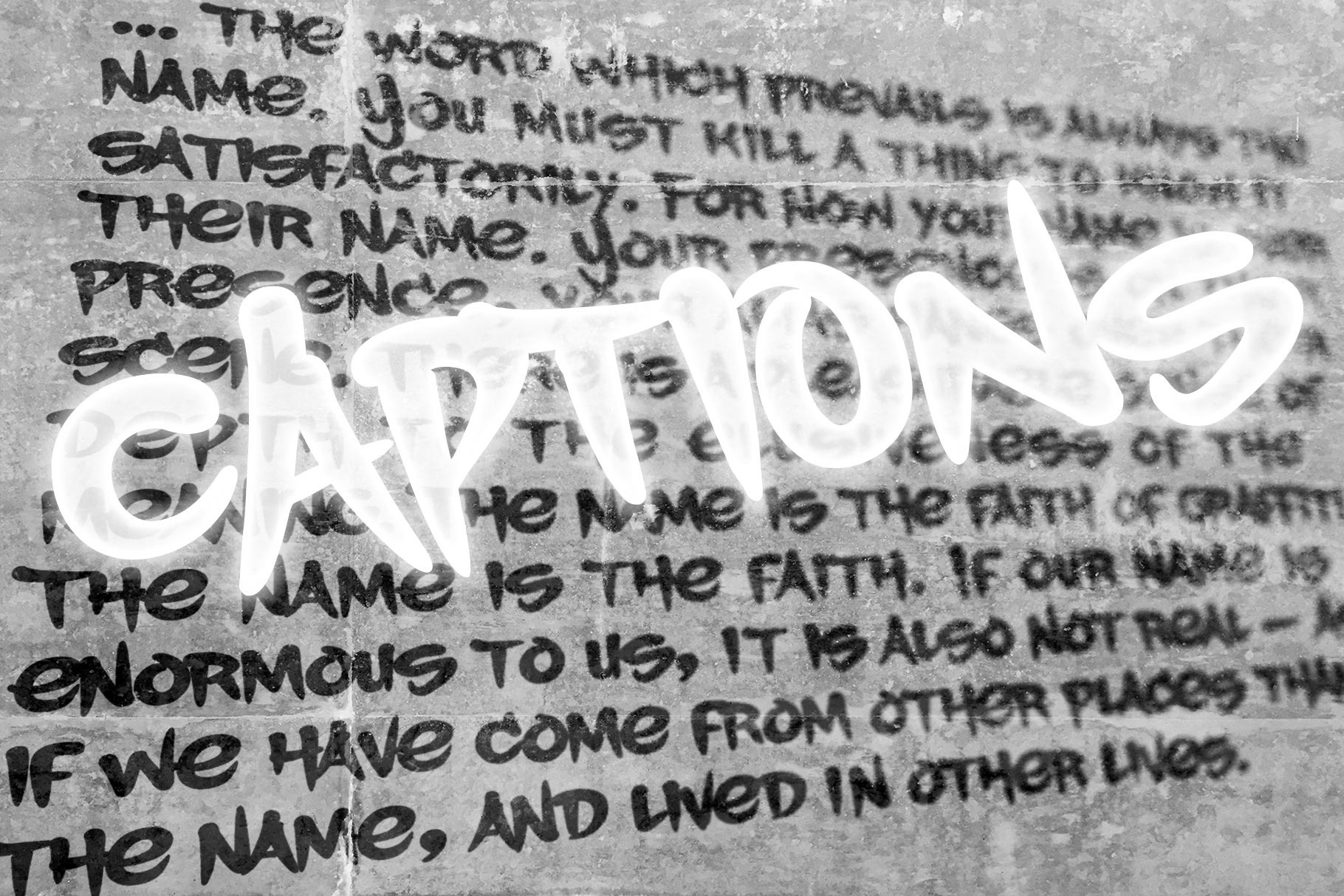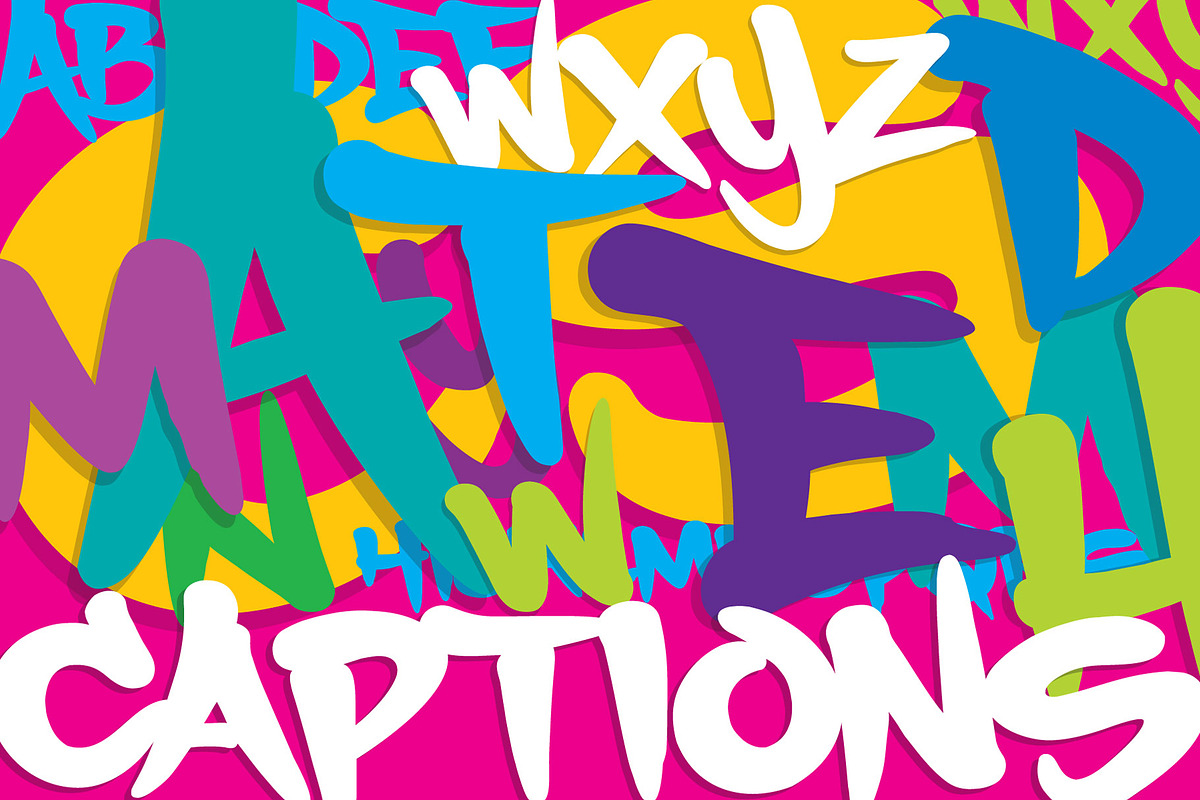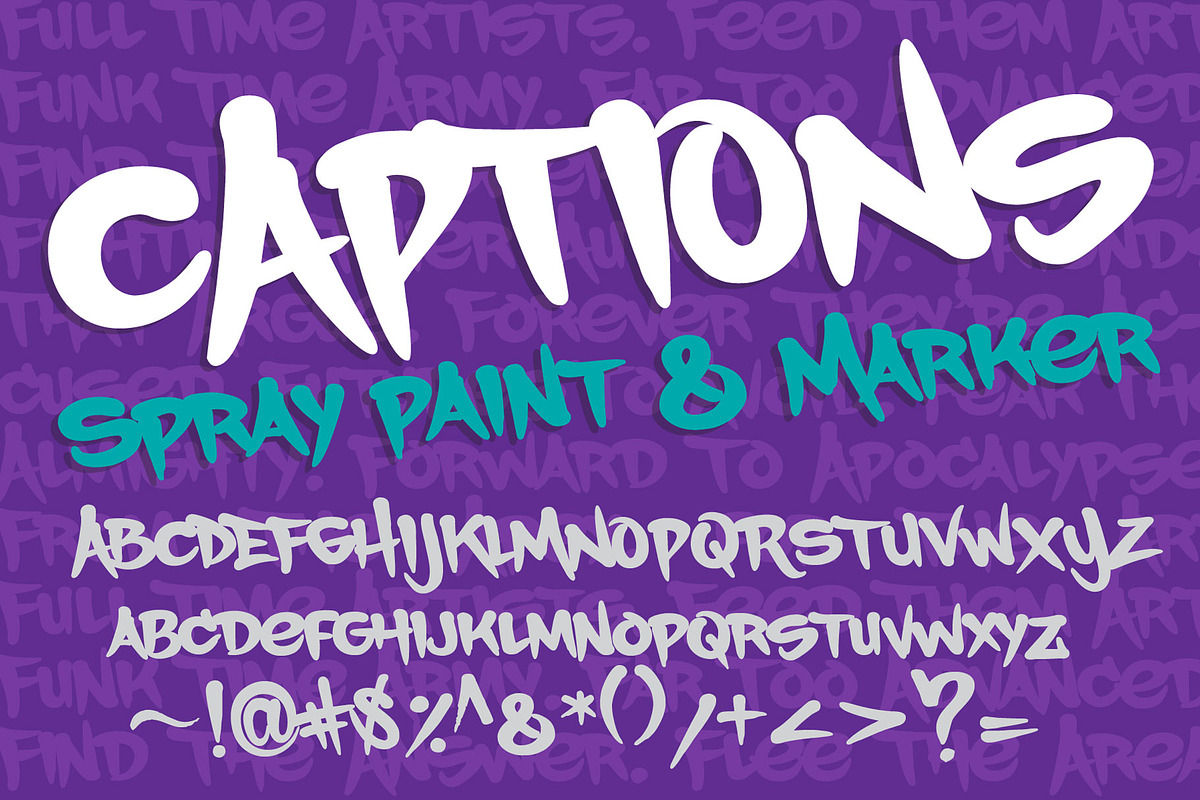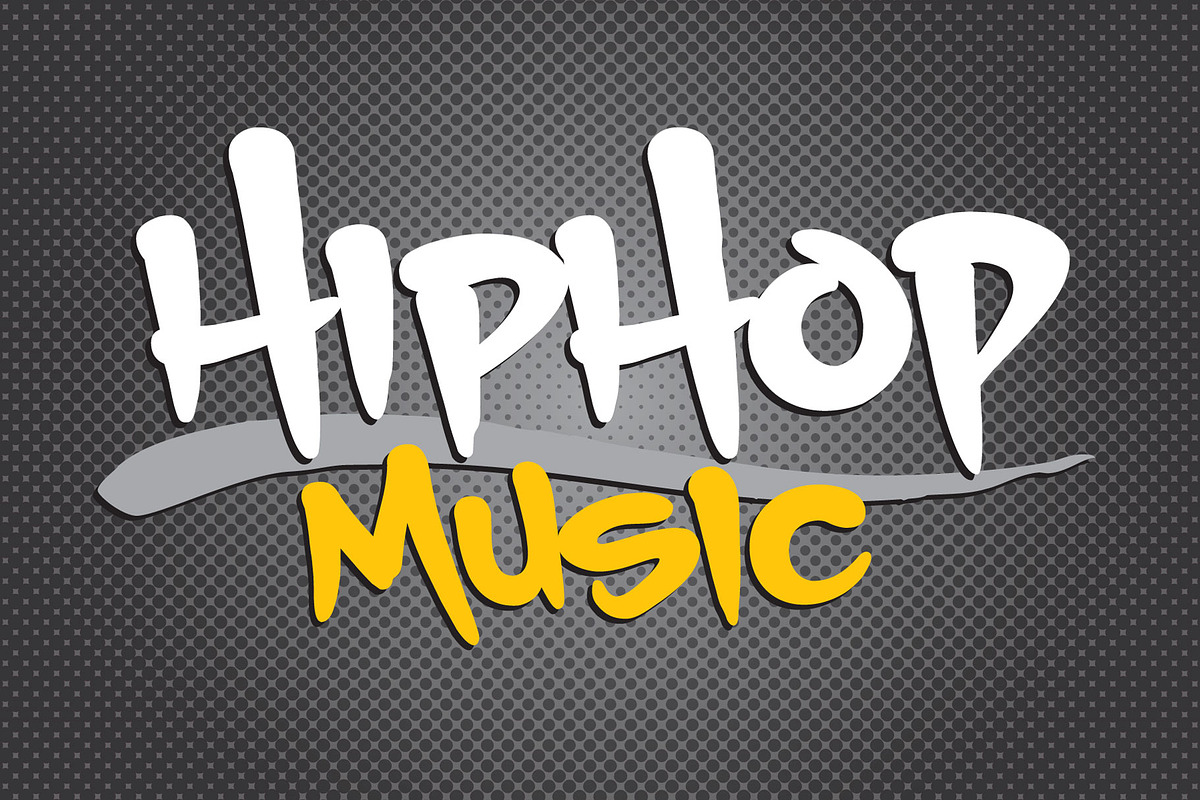
Captions Graffiti Font Family
The Captions font family was created to mimic the text cations often incorporated into graffiti pieces and productions. The family includes a "Paint" style that emulates full-scale spray paint writing while the "Marker" style emulates a bullet-tip marker like you might see in a sketchbook.